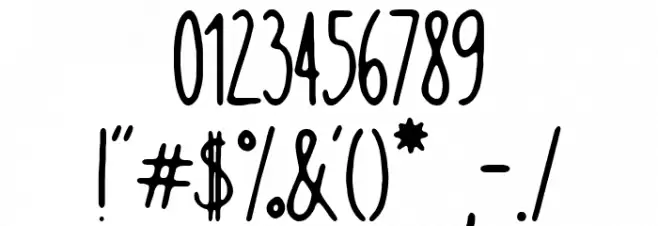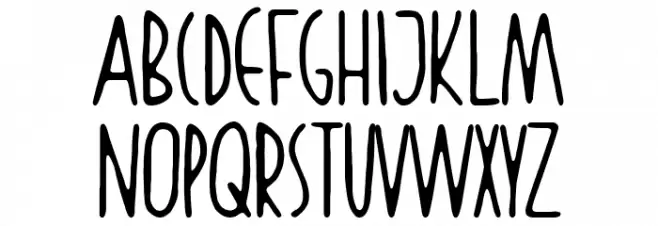
Asteroide Font
Asteroide Description
A tall, narrow, handwritten sans-serif font with playful, irregular strokes and a casual, informal appearance. The characters have varying thickness and a slightly uneven baseline, giving it a lively and organic feel.
| Width | Condensed |
| Overall Style | Playful, Informal, Hand-drawn |
| Use Case | Headlines, Posters, Creative projects, Informal branding |
| Proposed Projects | ChildrenΓ’β¬β’s books, greeting cards, posters, creative branding, informal invitations. |